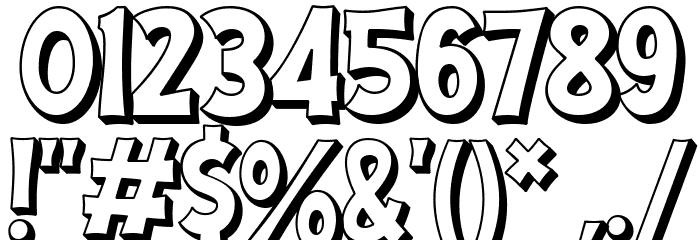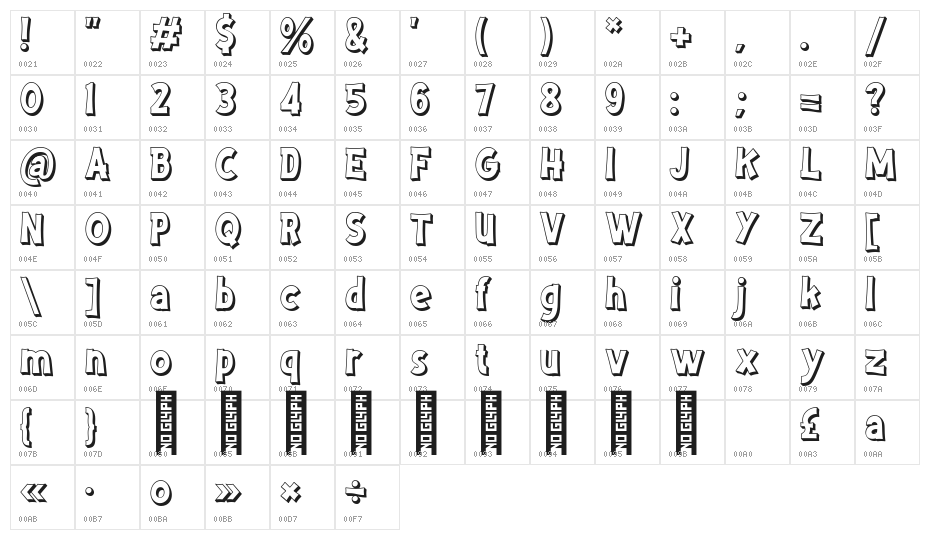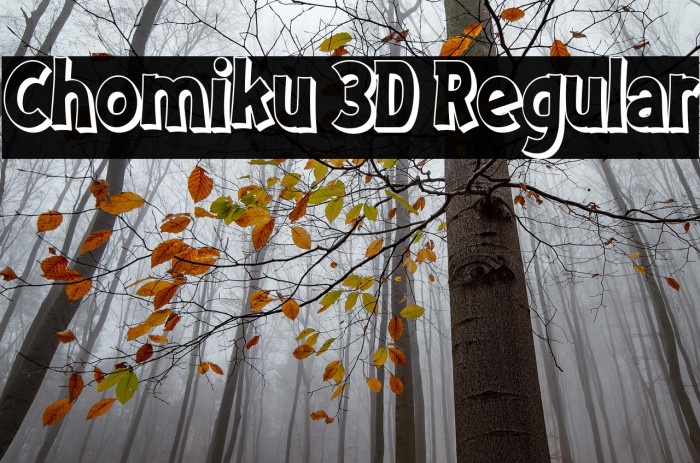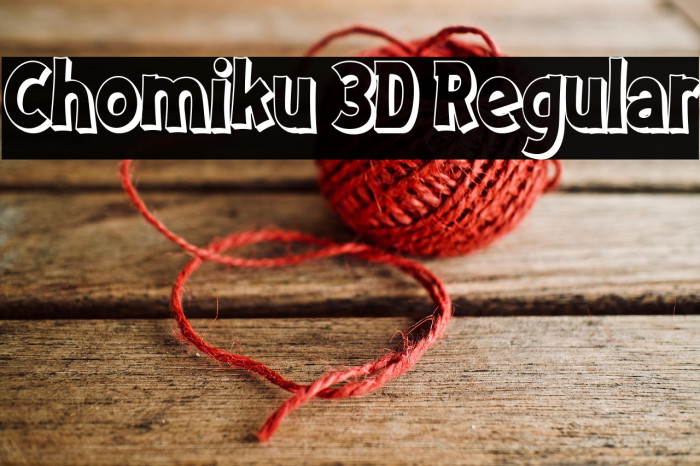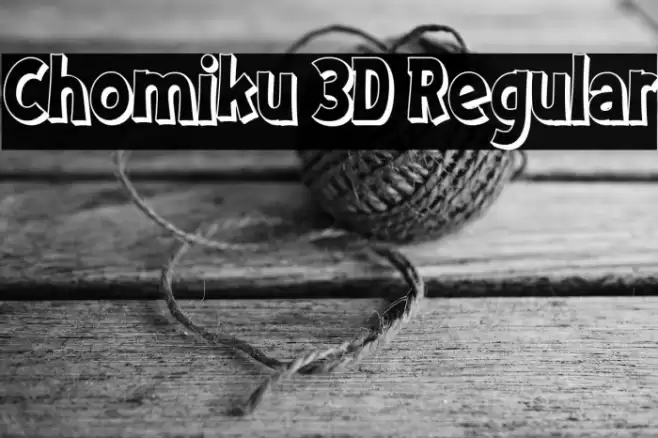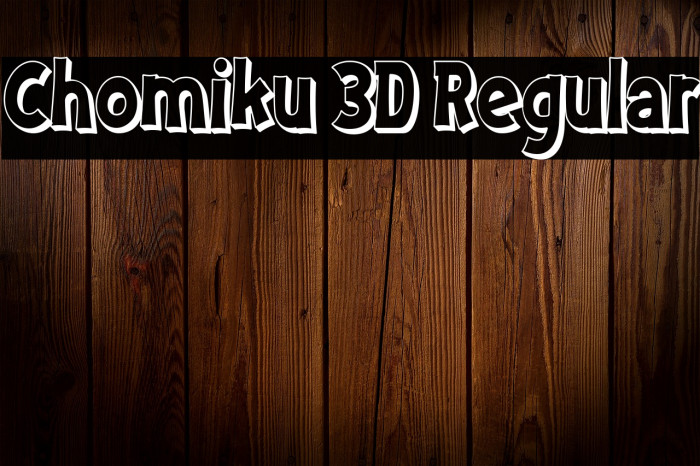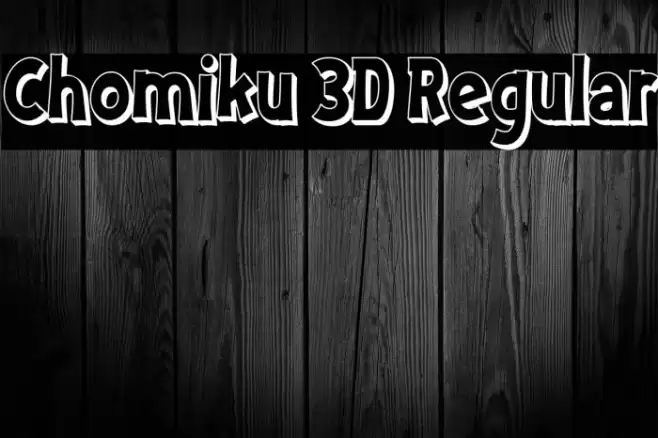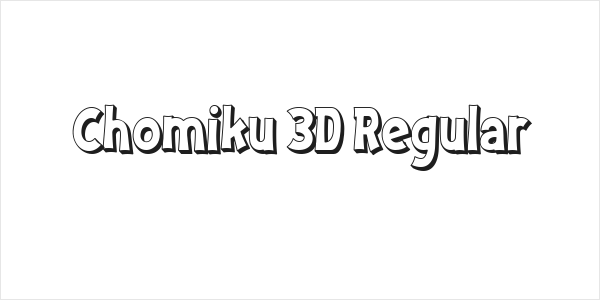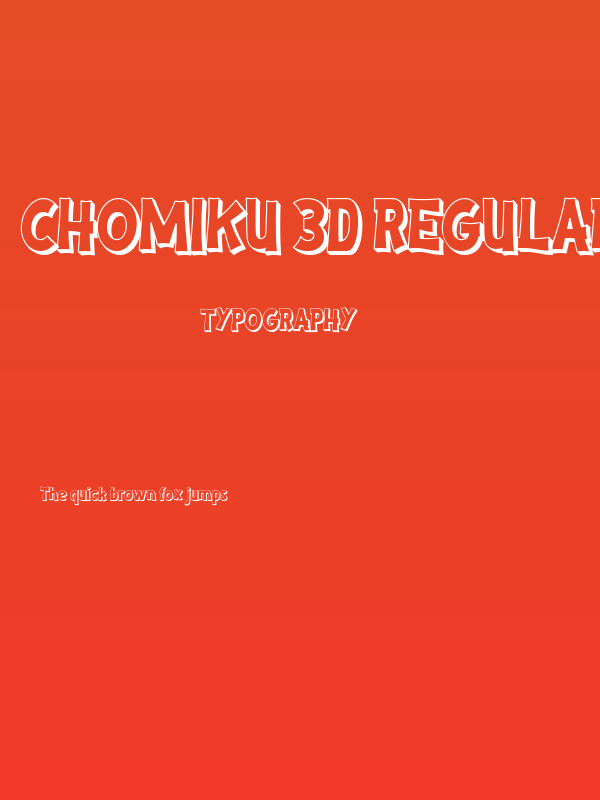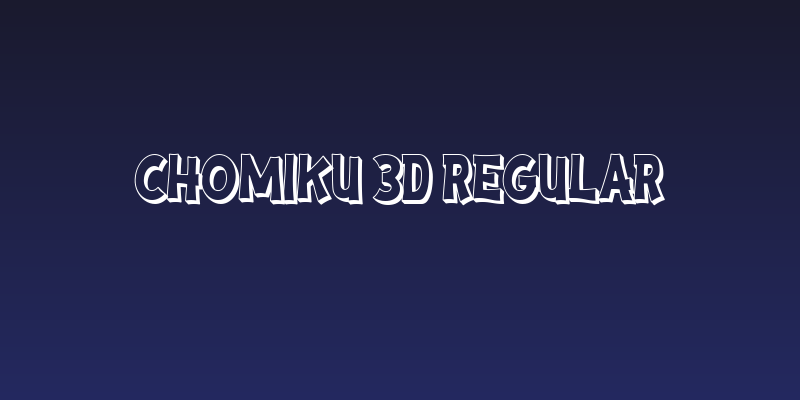
Chomiku 3D Regular Font
Chomiku 3D Regular Description
This font features a bold, playful 3D style with a cartoonish flair. The letters are thick and have a shadow effect that gives them a three-dimensional appearance. The uppercase and lowercase characters maintain a consistent style, with rounded edges and a slightly exaggerated form that adds to the whimsical nature. The numerals and special characters follow the same design principles, ensuring uniformity across all glyphs. This font is ideal for projects that require a fun and engaging visual element, making it suitable for children's books, comic strips, or playful branding.
| Overall Style | Playful, Cartoonish, 3D |
| Proposed Projects | Ideal for children's books, comic strips, playful branding, and creative posters. |